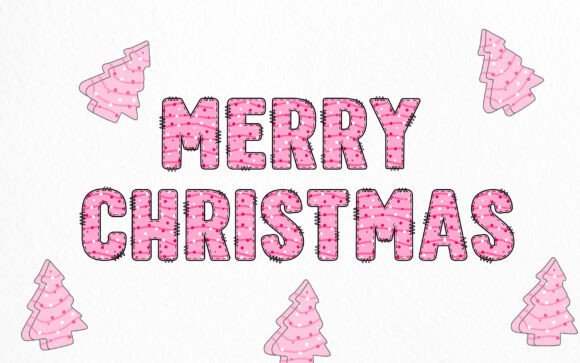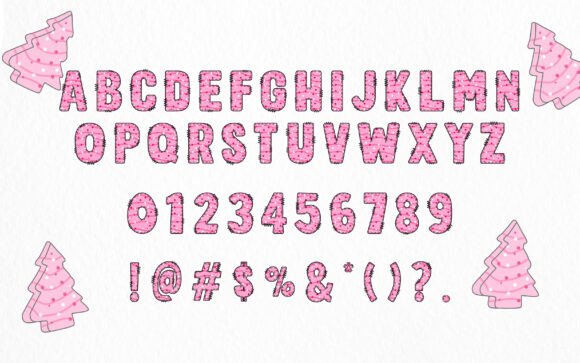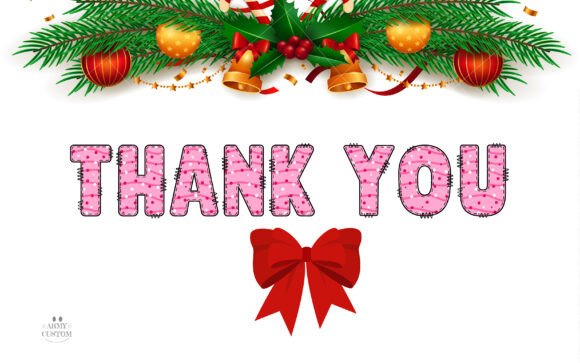
Experience the Magic of Christmas with the Christmas Cake Army Font
It’s the most wonderful time of the year, and what better way to spread the holiday cheer than with a font that’s as festive as it is functional? Look no further than the Christmas Cake Army Font, a vibrant and eye-catching typeface that’s sure to add a splash of color and joy to your designs. In this article, we’ll dive into the world of Christmas Cake Army Font, exploring its features, benefits, and uses, as well as provide tips and tricks for getting the most out of this amazing font.
A Font that’s as Festive as it is Functional
The Christmas Cake Army Font is a distinctive decorative font that’s been immaculately crafted to bring a touch of holiday magic to your designs. With its unique blend of traditional and modern elements, this font is the perfect way to capture the festive spirit and add a dash of personality to your projects. Whether you’re a designer, crafter, or simply someone who loves the holiday season, this font is sure to delight.
Key Features of the Christmas Cake Army Font
- Vibrant and Eye-Catching: The Christmas Cake Army Font is a true showstopper, with a bold and colorful design that’s sure to turn heads.
- Immaculately Crafted: This font has been carefully crafted to ensure that every detail is perfect, from the intricate patterns to the precise typography.
- Clear and Legible: Despite its decorative nature, the Christmas Cake Army Font remains clear and easy to read, making it perfect for a range of applications.
Using the Christmas Cake Army Font in Your Designs
So, how can you use the Christmas Cake Army Font in your designs? The possibilities are endless! Here are a few ideas to get you started:
- Holiday Cards and Invitations: Add a touch of festive flair to your holiday cards and invitations with this beautiful font.
- Social Media Graphics: Use the Christmas Cake Army Font to create eye-catching social media graphics that are sure to spread holiday cheer.
- Web Design: Add a dash of holiday magic to your website with this vibrant and festive font.
Tips and Tricks for Getting the Most out of the Christmas Cake Army Font
To get the most out of the Christmas Cake Army Font, here are a few tips and tricks to keep in mind:
- Experiment with Different Colors: While the font comes in a range of colors, don’t be afraid to experiment with different hues and combinations to find the perfect look for your design.
- Pair it with Other Fonts: The Christmas Cake Army Font works beautifully with other fonts, so don’t be afraid to get creative and try out different pairings.
- Use it to Add Emphasis: The bold and colorful design of the font makes it perfect for adding emphasis to key words or phrases in your design.